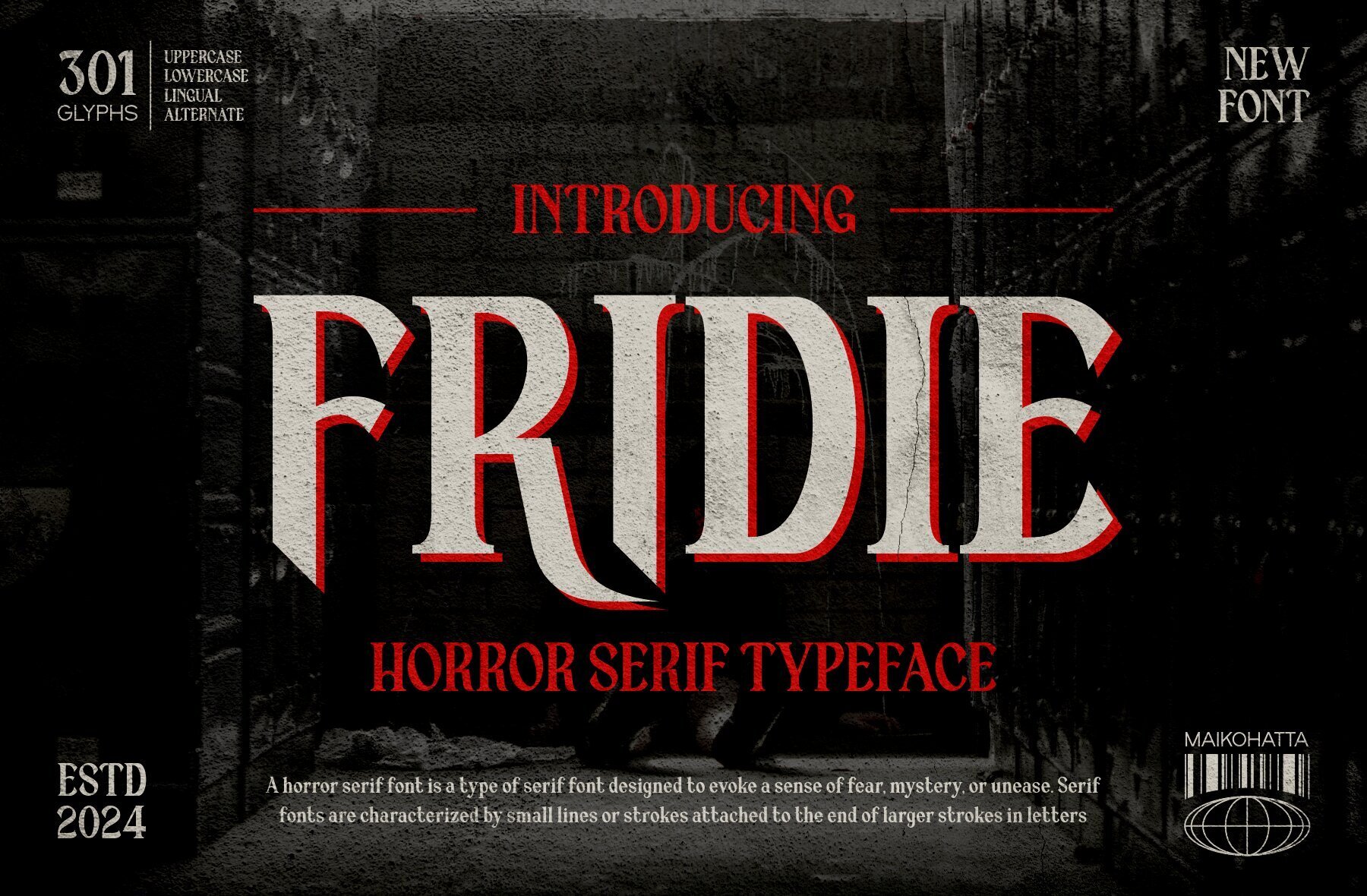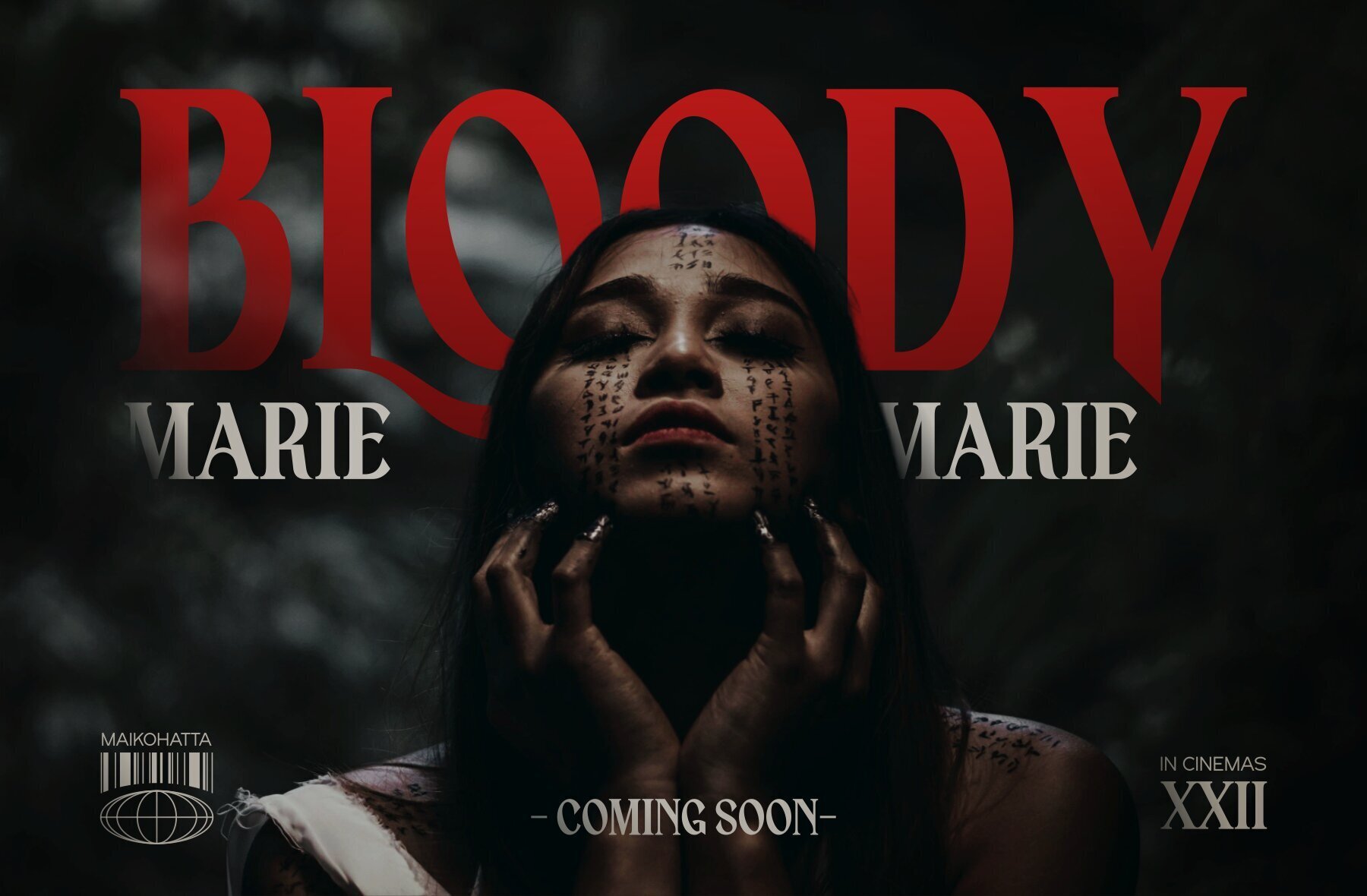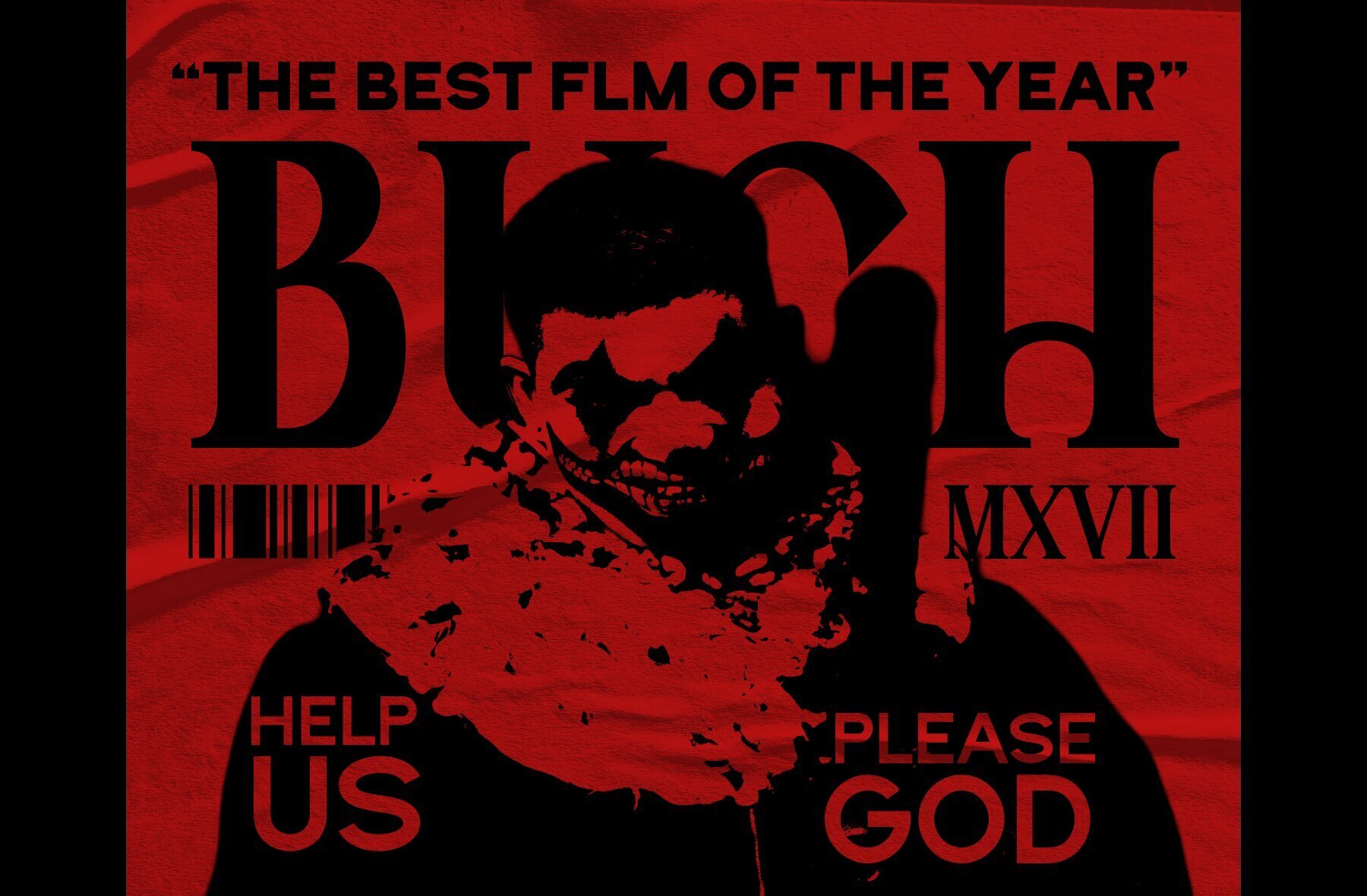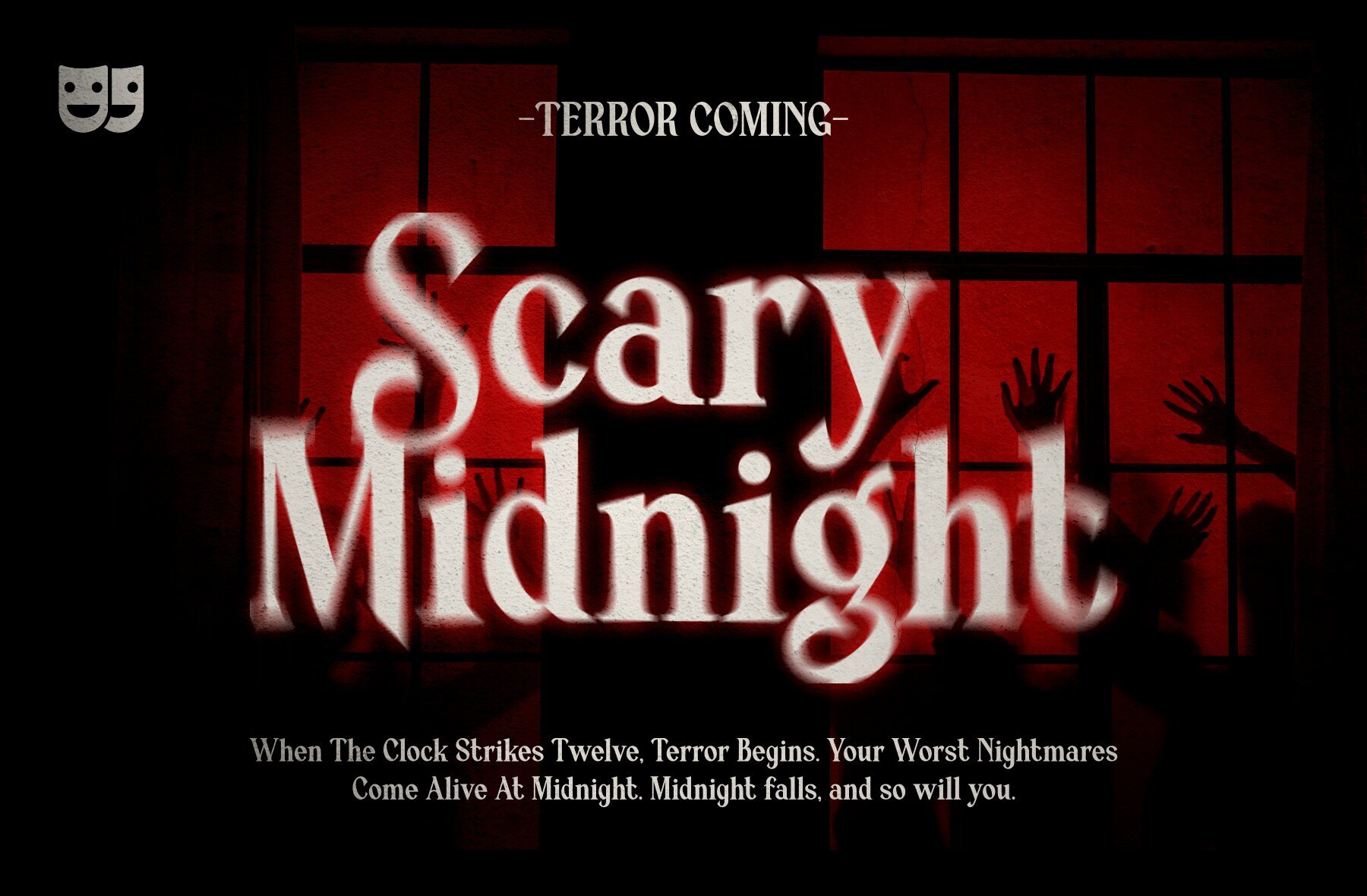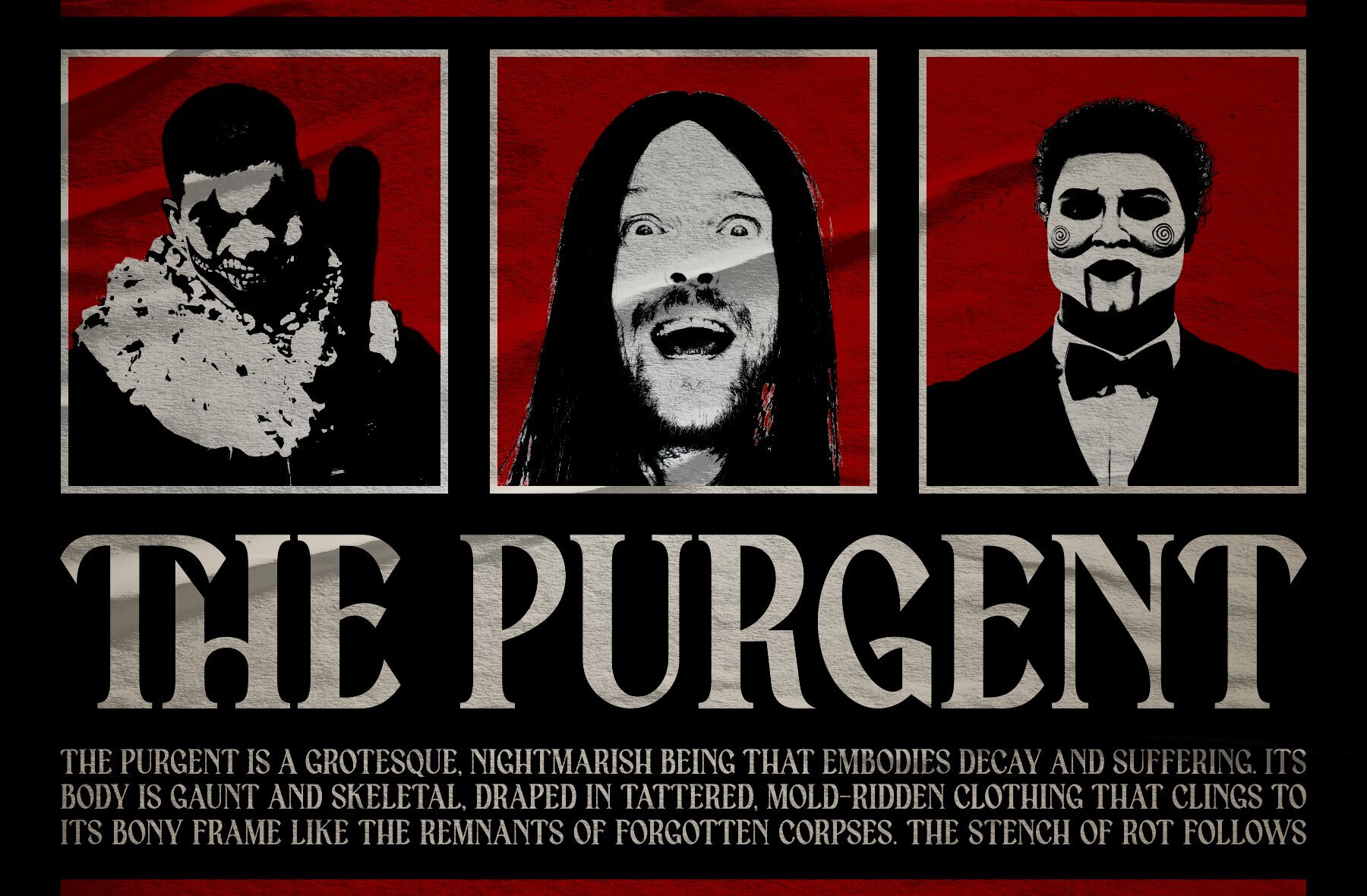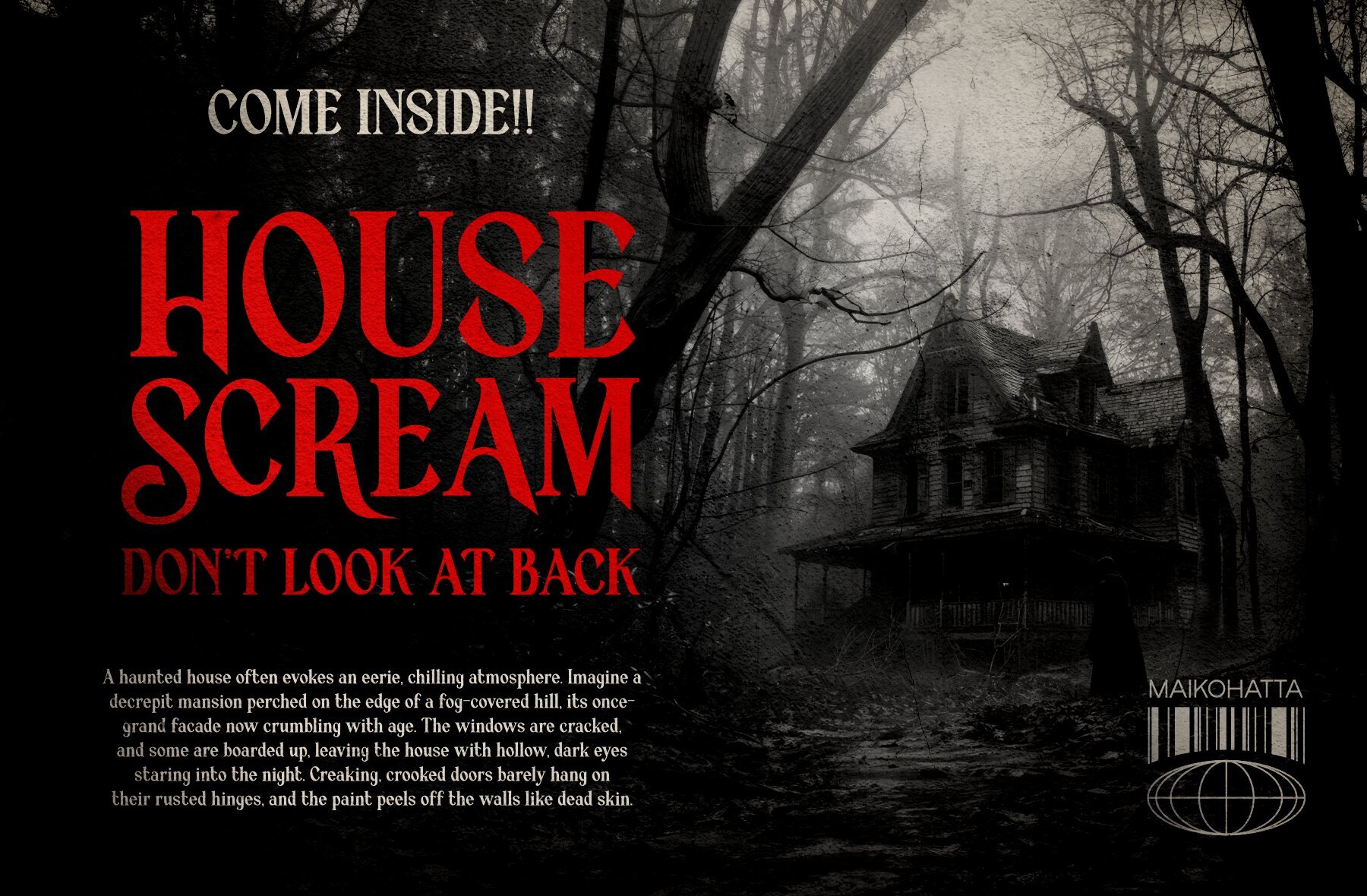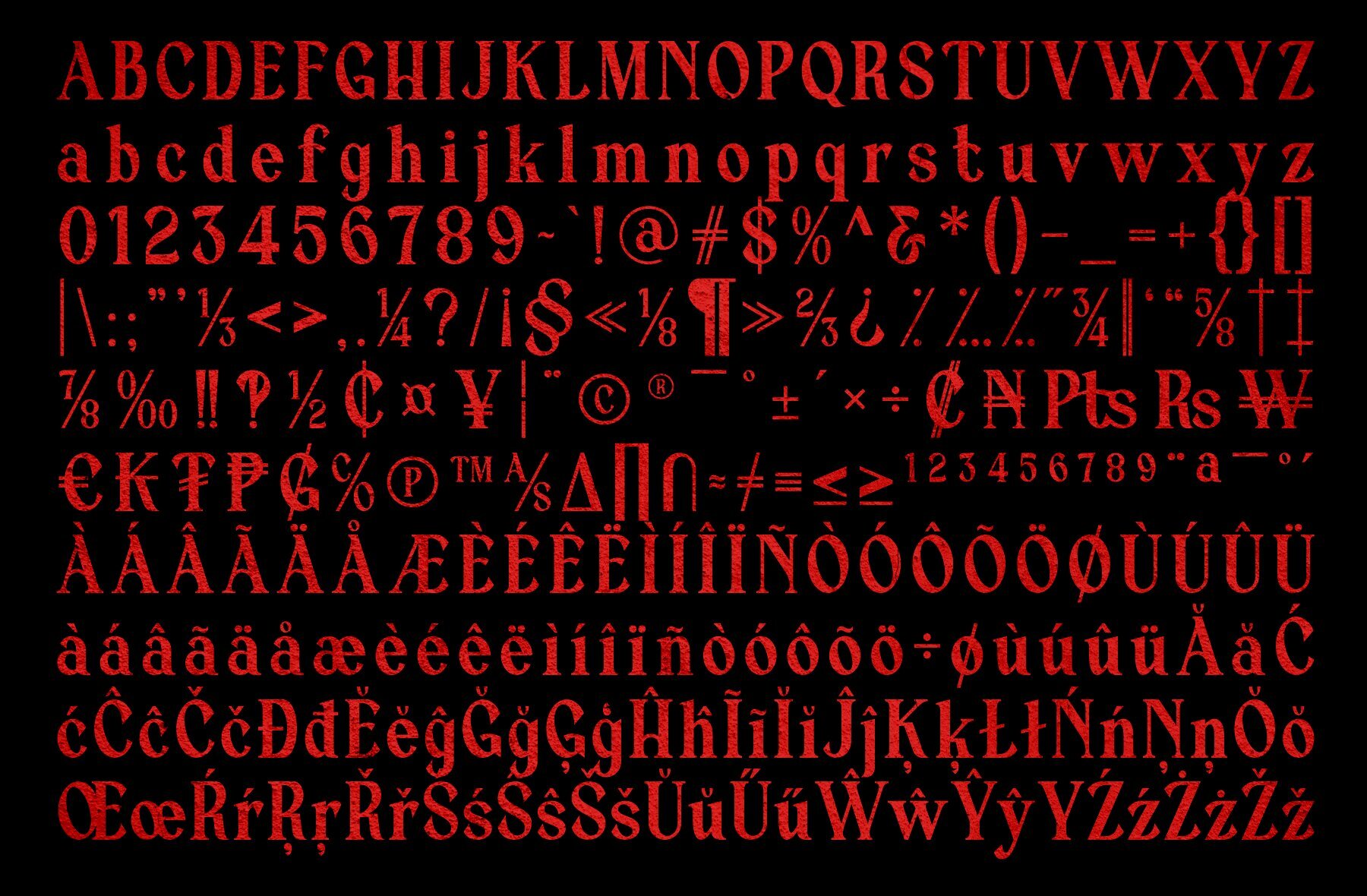
Fridie Font
FRIDIE
Fridie is a Horror Serif Typeface designed to instill a spooky and mysterious vibe, perfectly capturing the essence of Halloween. Its unique design is ideal for creating a chilling atmosphere across different Halloween-themed projects. Use this typeface to enhance party invitations, posters, merchandise, and greeting cards, ensuring your designs embody the haunting spirit of this festive occasion.
This font's versatile applications make it a great choice for designing warning signs or adding a Halloween twist to website elements. Fridie's distinctive style brings an eerie yet sophisticated touch to any creative endeavor, making it a go-to option for designers aiming to embody the eerie ambiance of Halloween in their work.